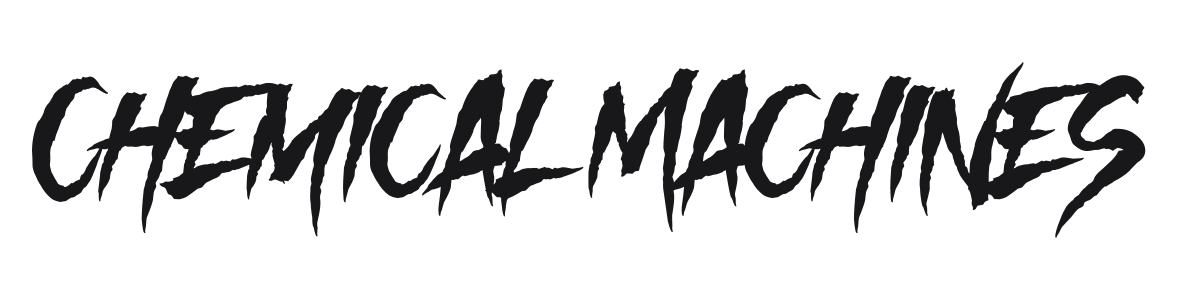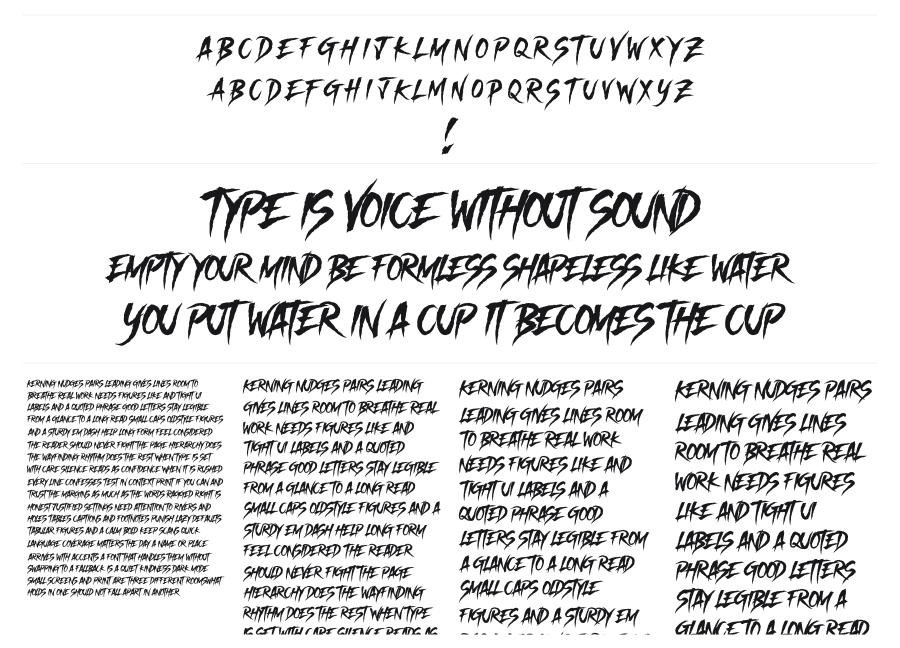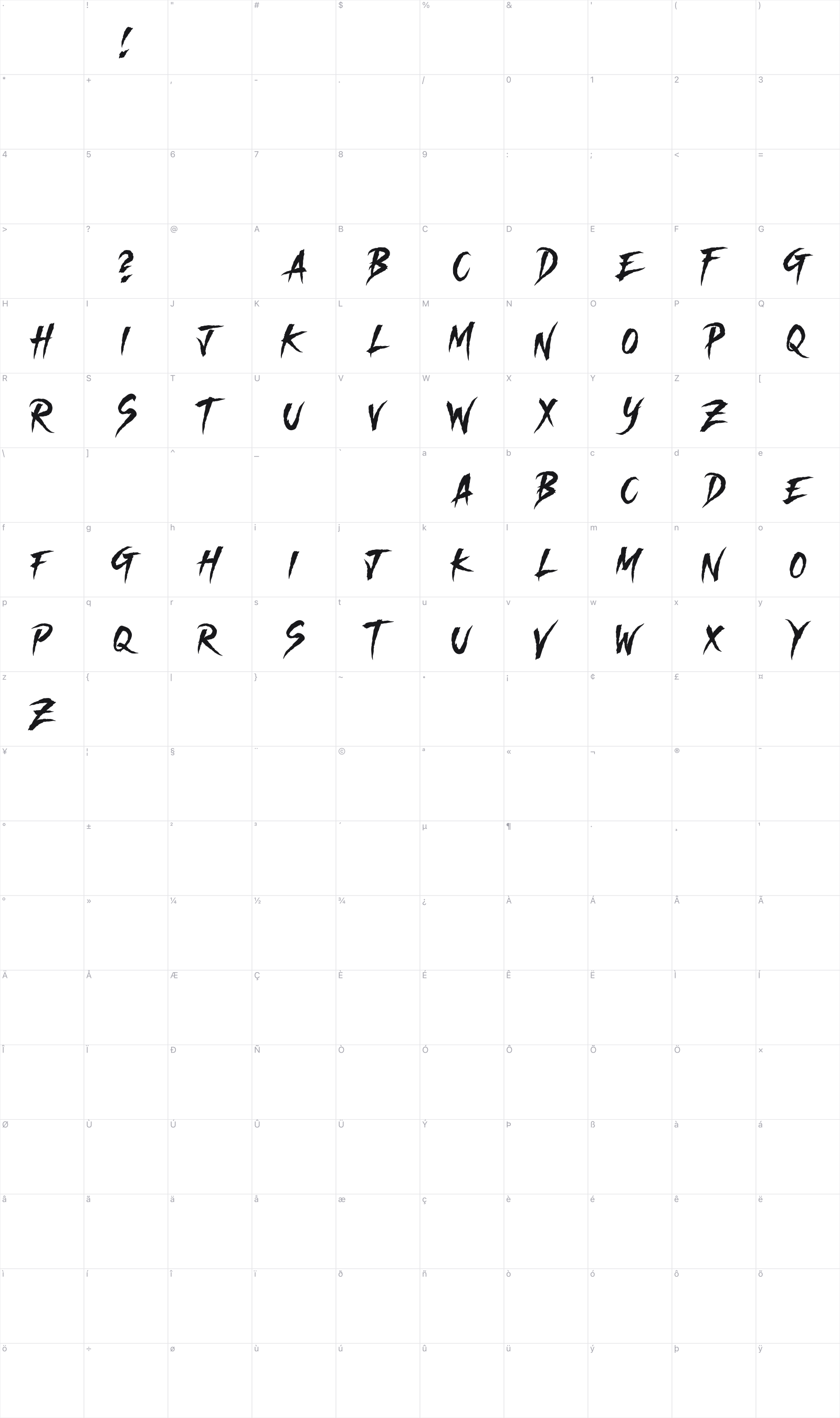
Chemical Machines
Chemical Machines is a distressed brush display font built on jagged, splintered strokes that feel like they were slashed onto the page. The extreme contrast between heavy brush sweeps and razor-thin hairlines, combined with fragmenting terminals, gives it a raw horror-punk energy with a retro exploitation edge. It works best large, where the texture and chaos can breathe.